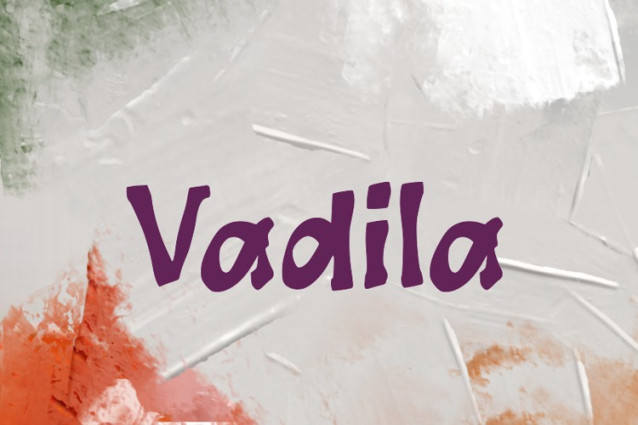
Vadila Font
Vadila Font, suitable for any design needs : logo, branding, modern advertising design, logos, poster quote, book / cover Title, editorial design, website / blog, card, t-shirts, and any hand-lettered needs.